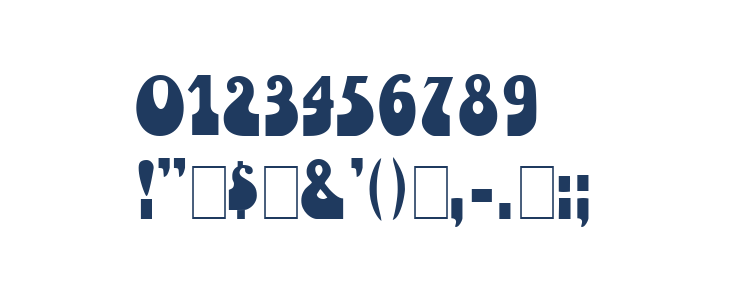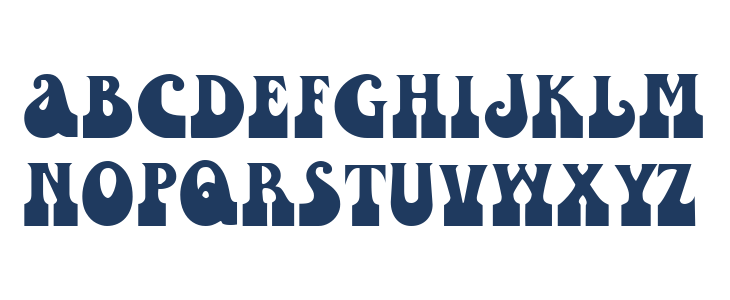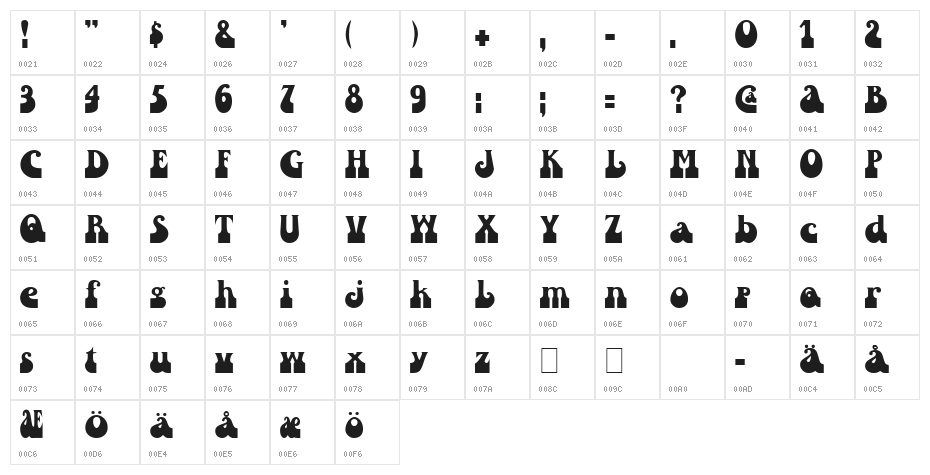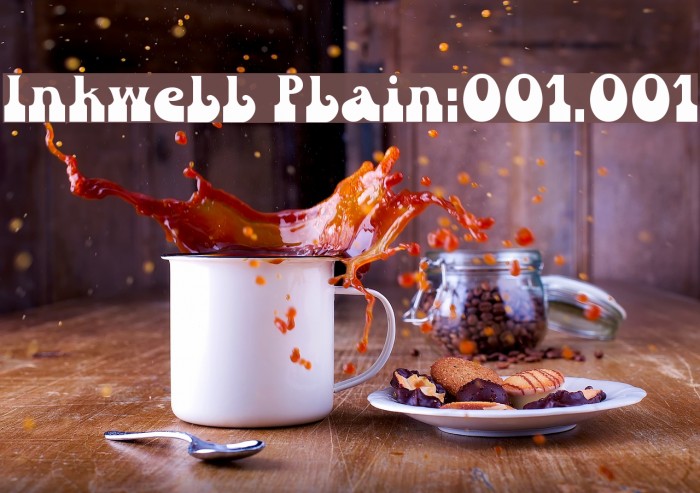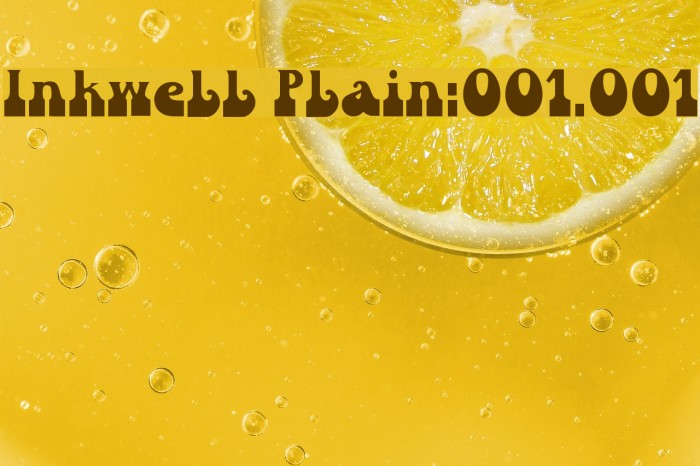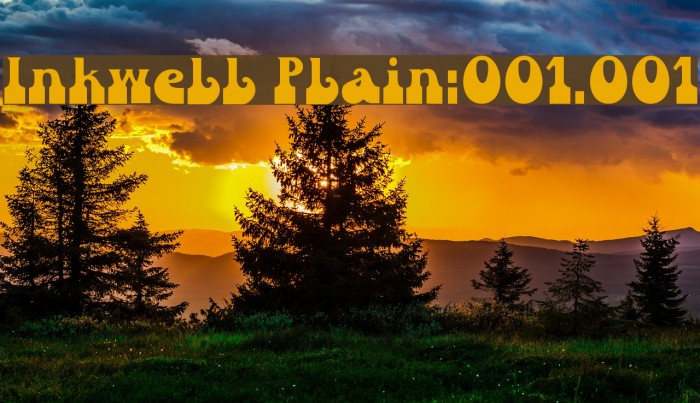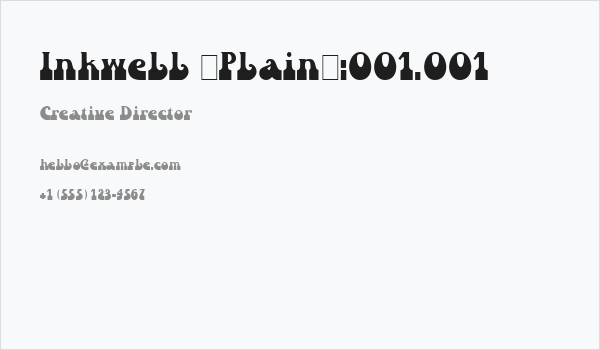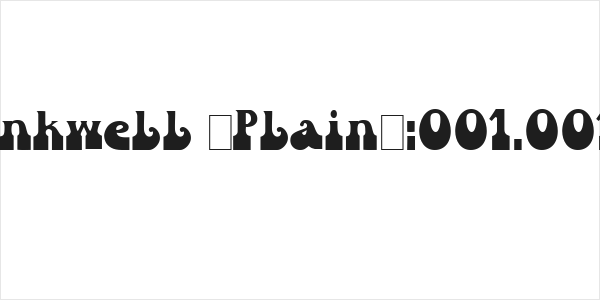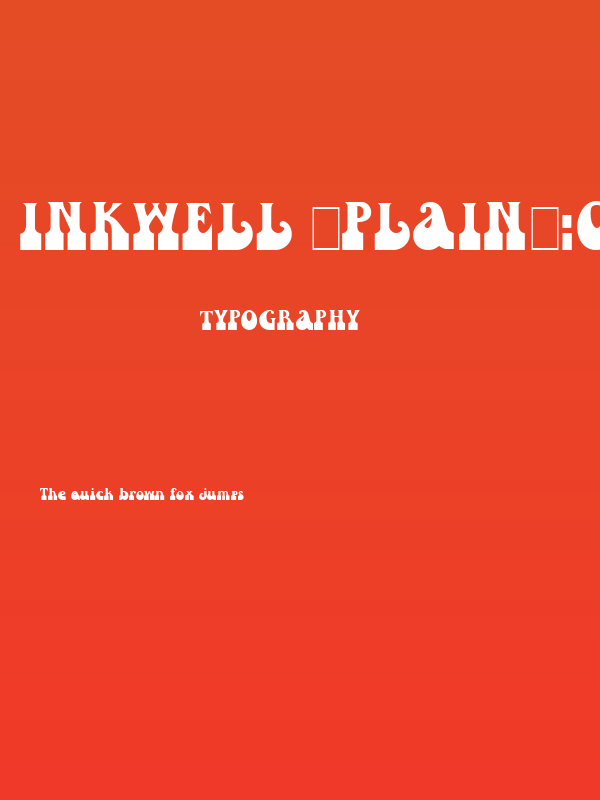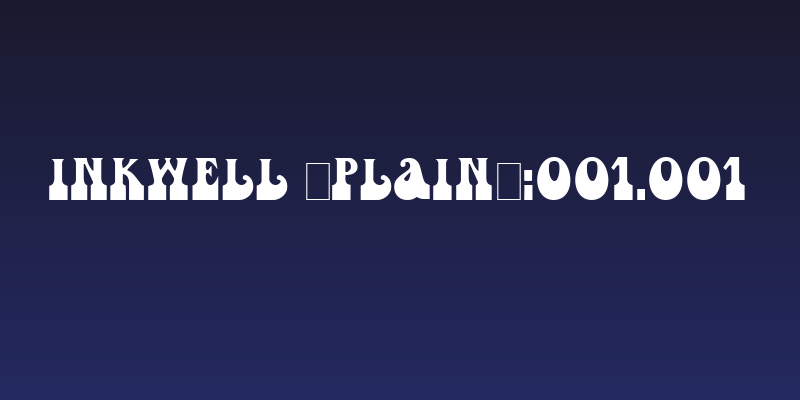
Inkwell [Plain]:001.001 Font
This font features a bold and playful design, characterized by its thick, blocky letters with unique cut-out shapes and curves. The uppercase letters have a strong presence, while the lowercase letters maintain a consistent style with slightly more rounded edges. The numbers are equally bold, ensuring they stand out in any context. Special characters are designed to match the overall aesthetic, providing a cohesive look across all glyphs. This font's distinct style makes it suitable for eye-catching designs.
Overall StylePlayful, Modern
Proposed ProjectsIdeal for poster designs, branding projects, children's books, and playful advertising campaigns.